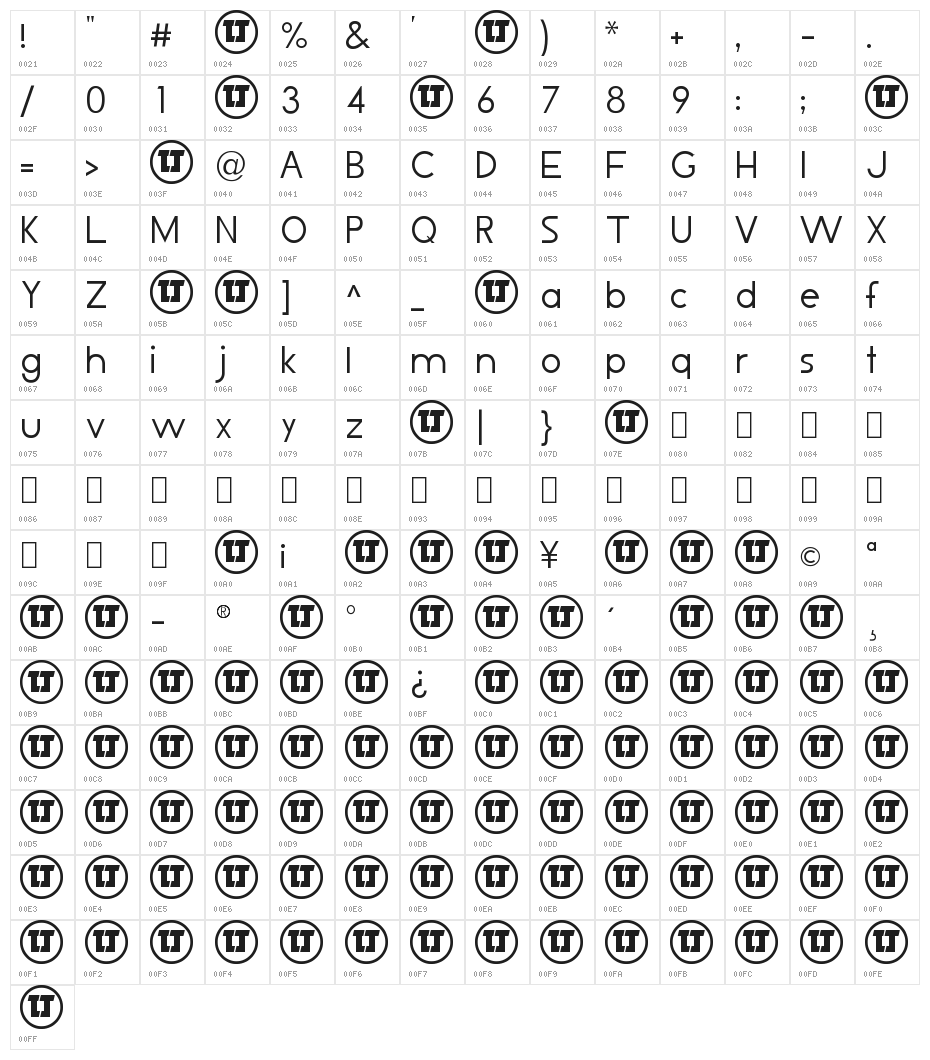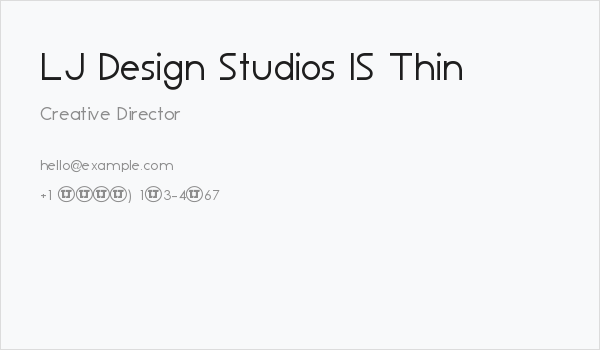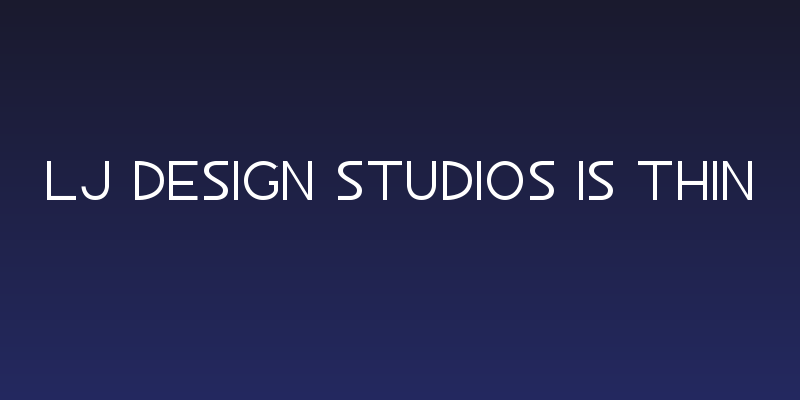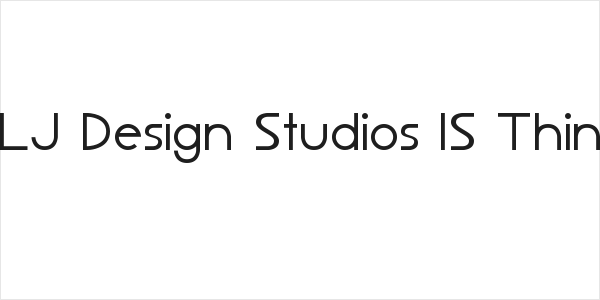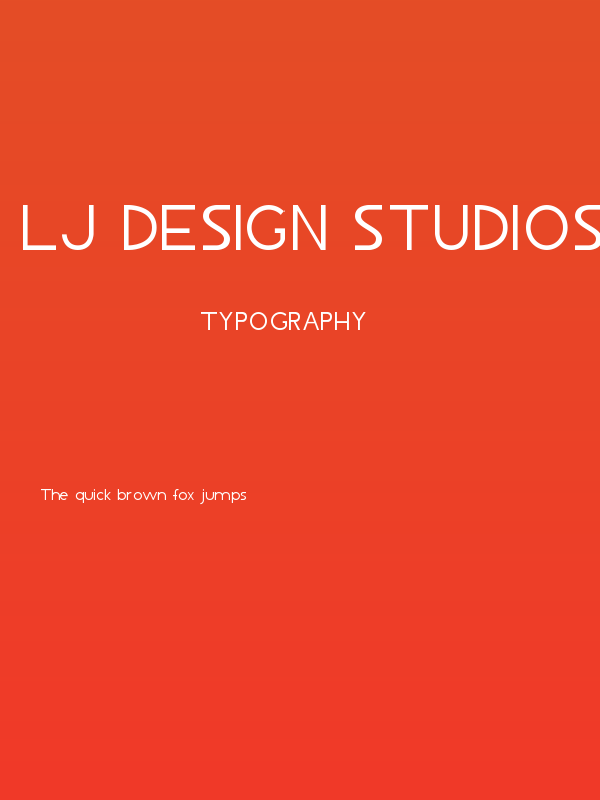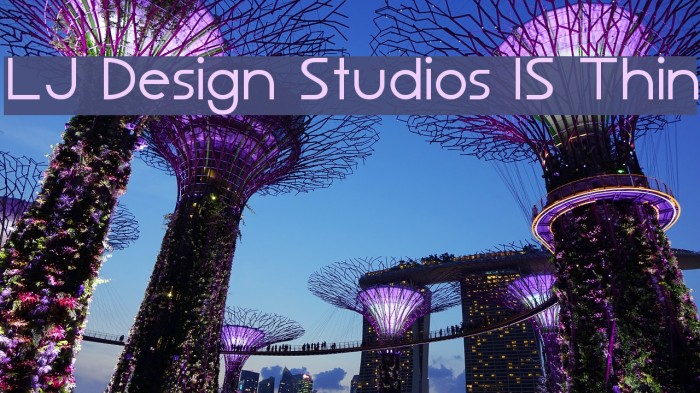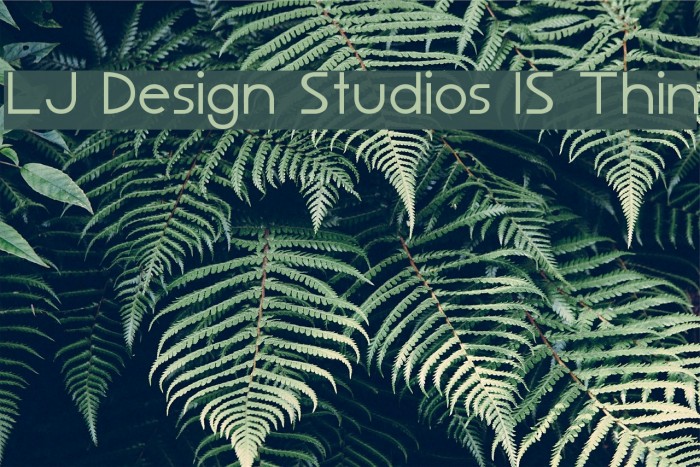
LJ Design Studios IS Thin Font
✎ Sans Serif
LJ Design Studios IS Thin Description
This font features a clean and modern sans-serif design with a thin and elegant appearance. The characters are well-proportioned, offering a harmonious balance between curves and straight lines. The uppercase letters are bold and assertive, while the lowercase letters maintain a friendly and approachable feel. The numerals are distinct and easy to read, making them suitable for various applications. Special characters are included, enhancing the font's versatility. Overall, this font exudes a contemporary and professional vibe, making it ideal for digital and print media.
| Use Case | Headlines, Body text, Logos |
| Proposed Projects | Ideal for branding, web design, editorial layouts, and corporate materials. |